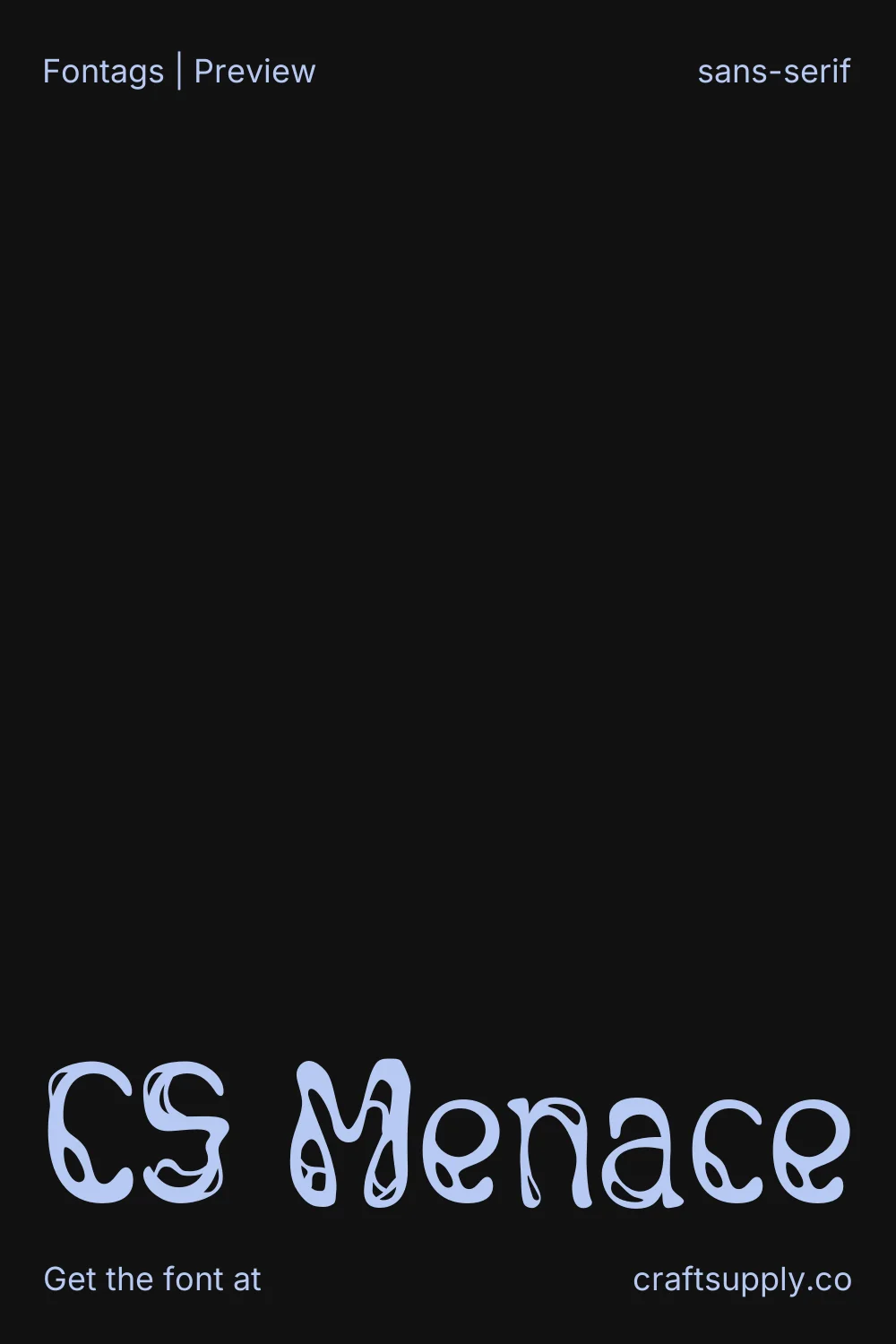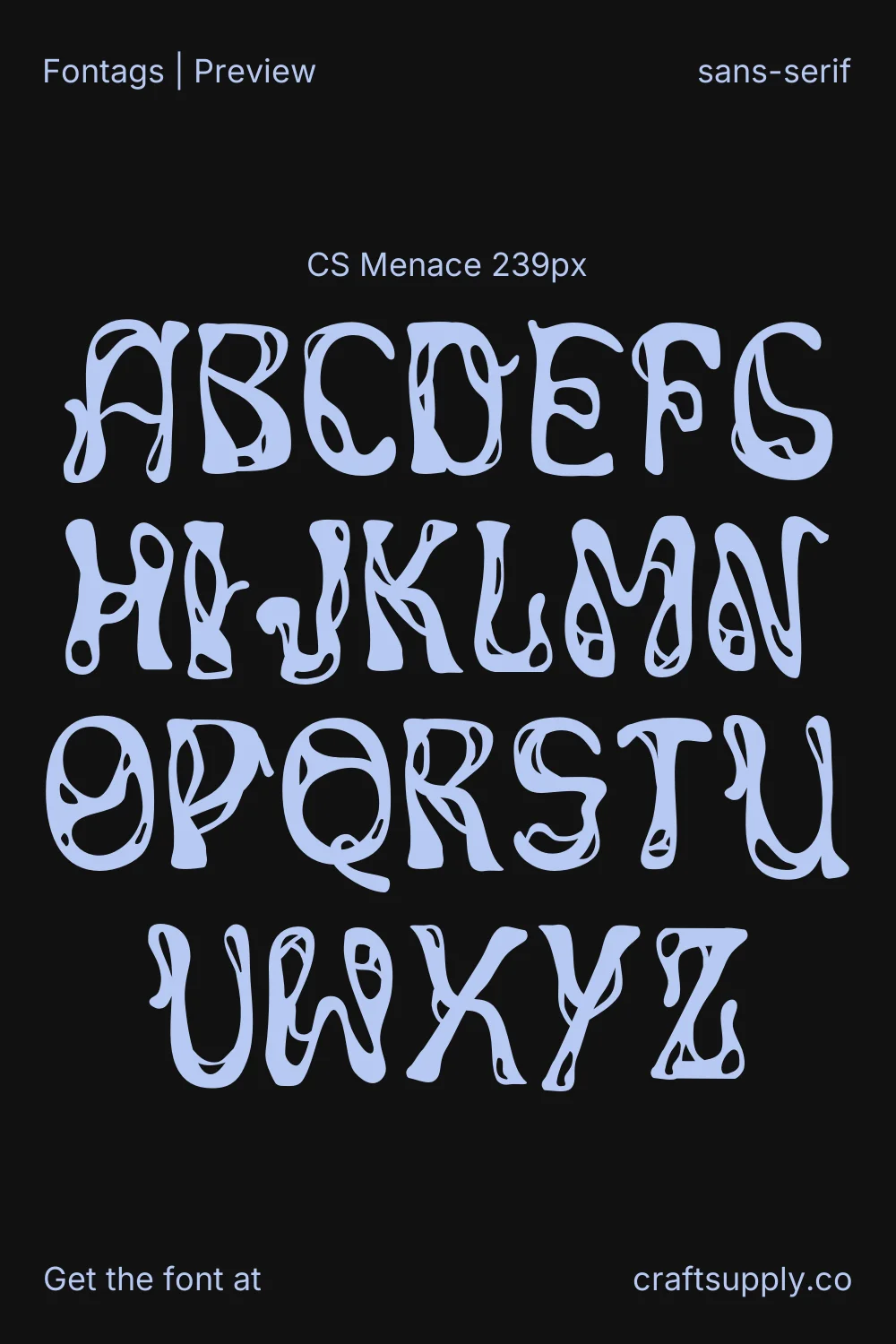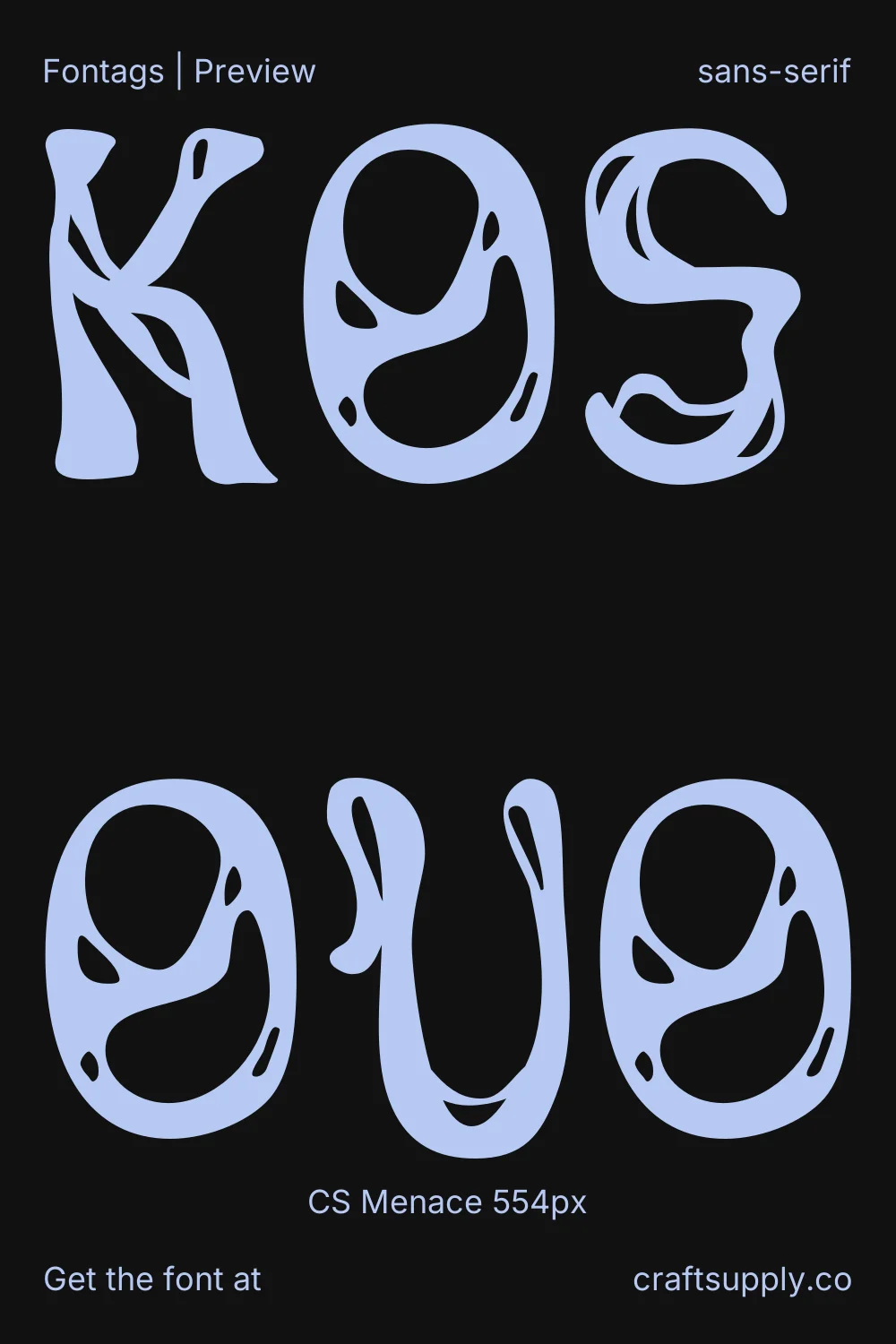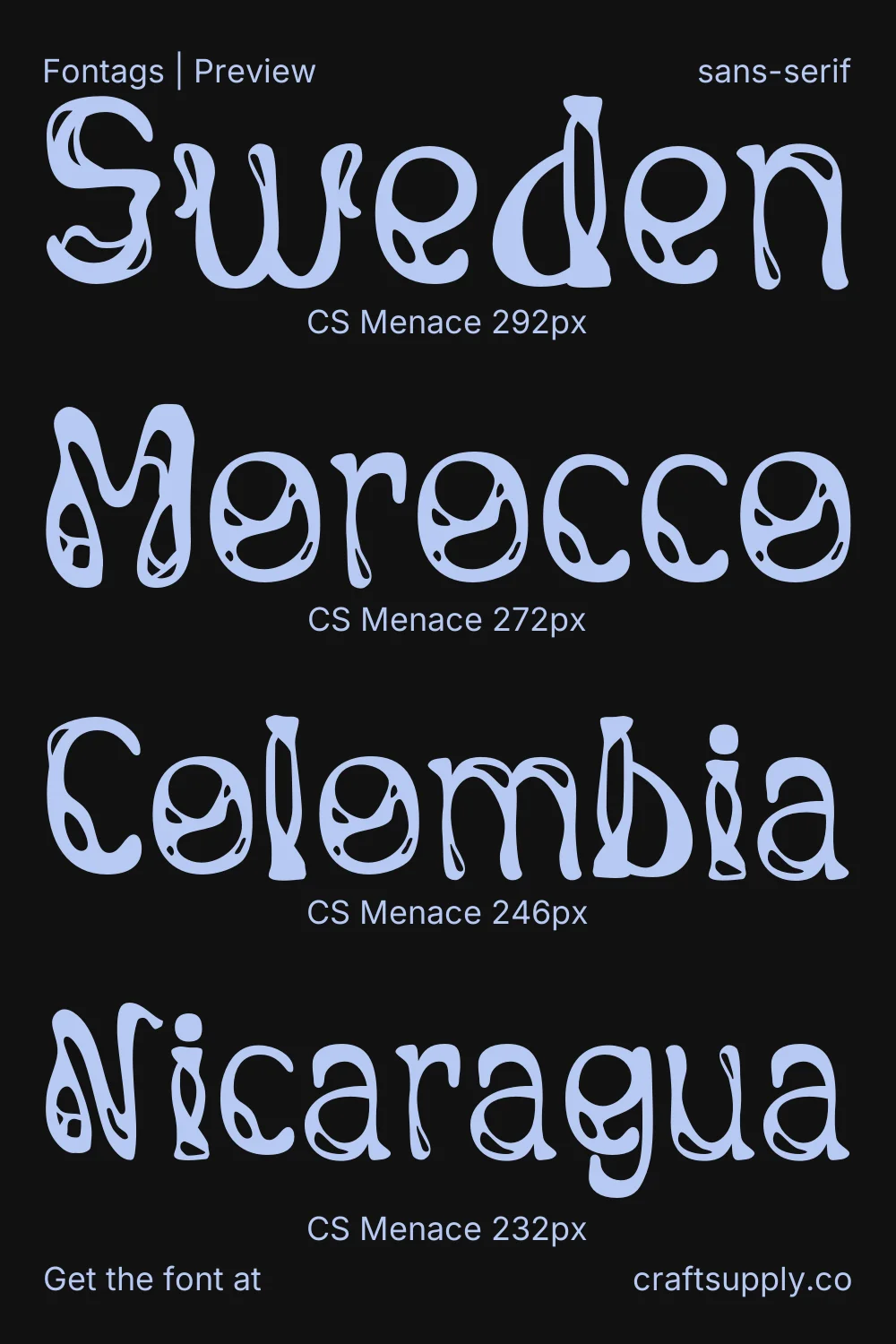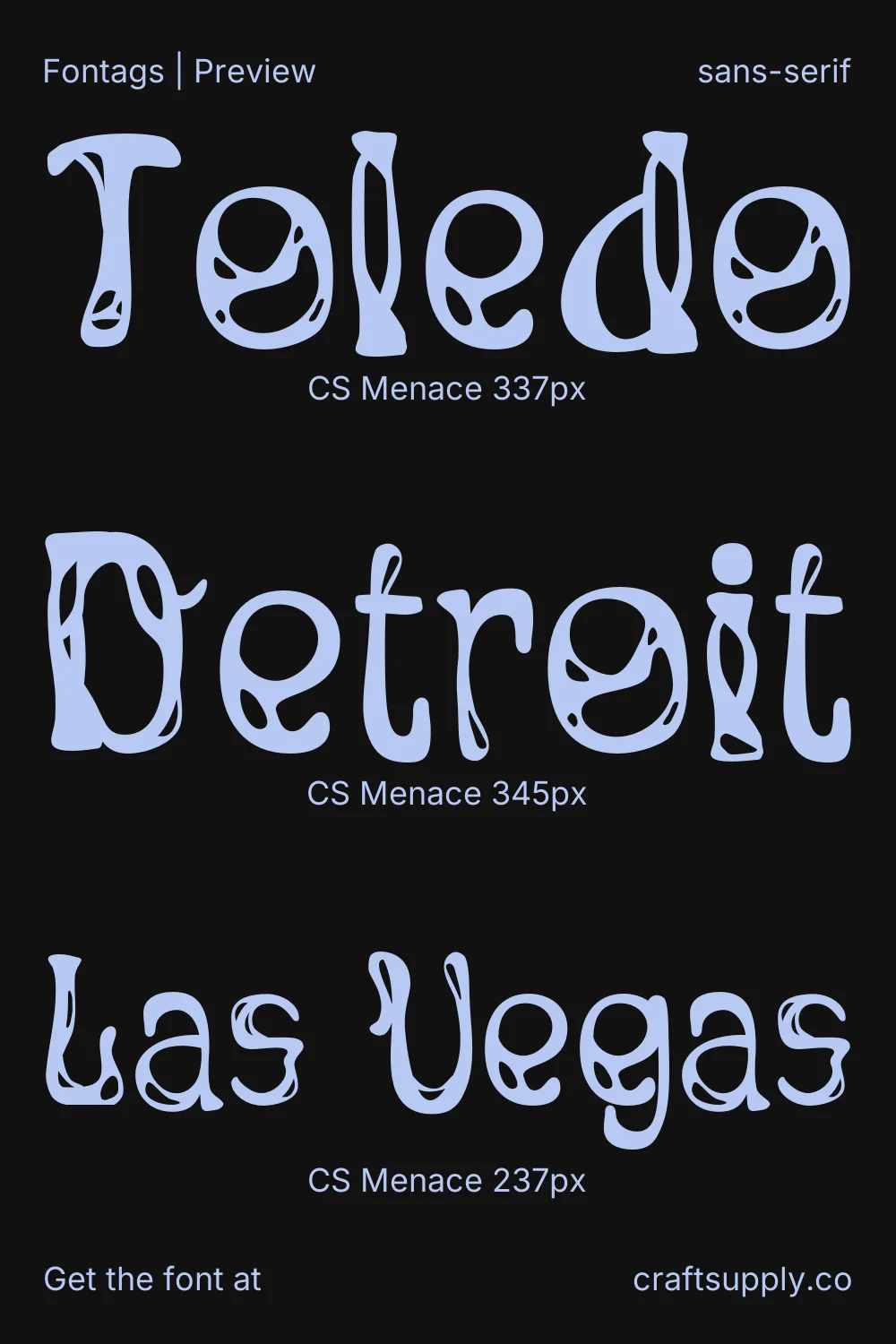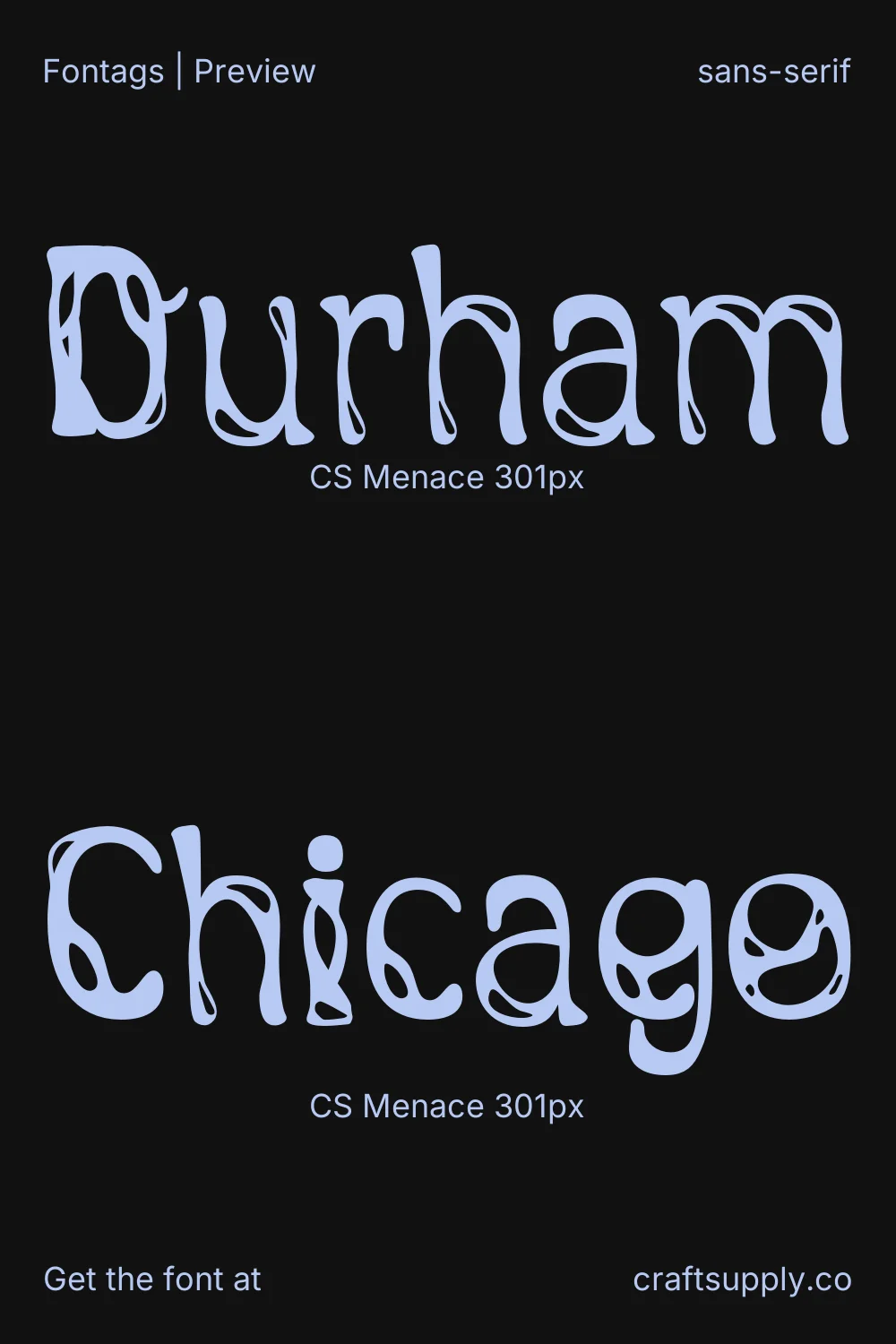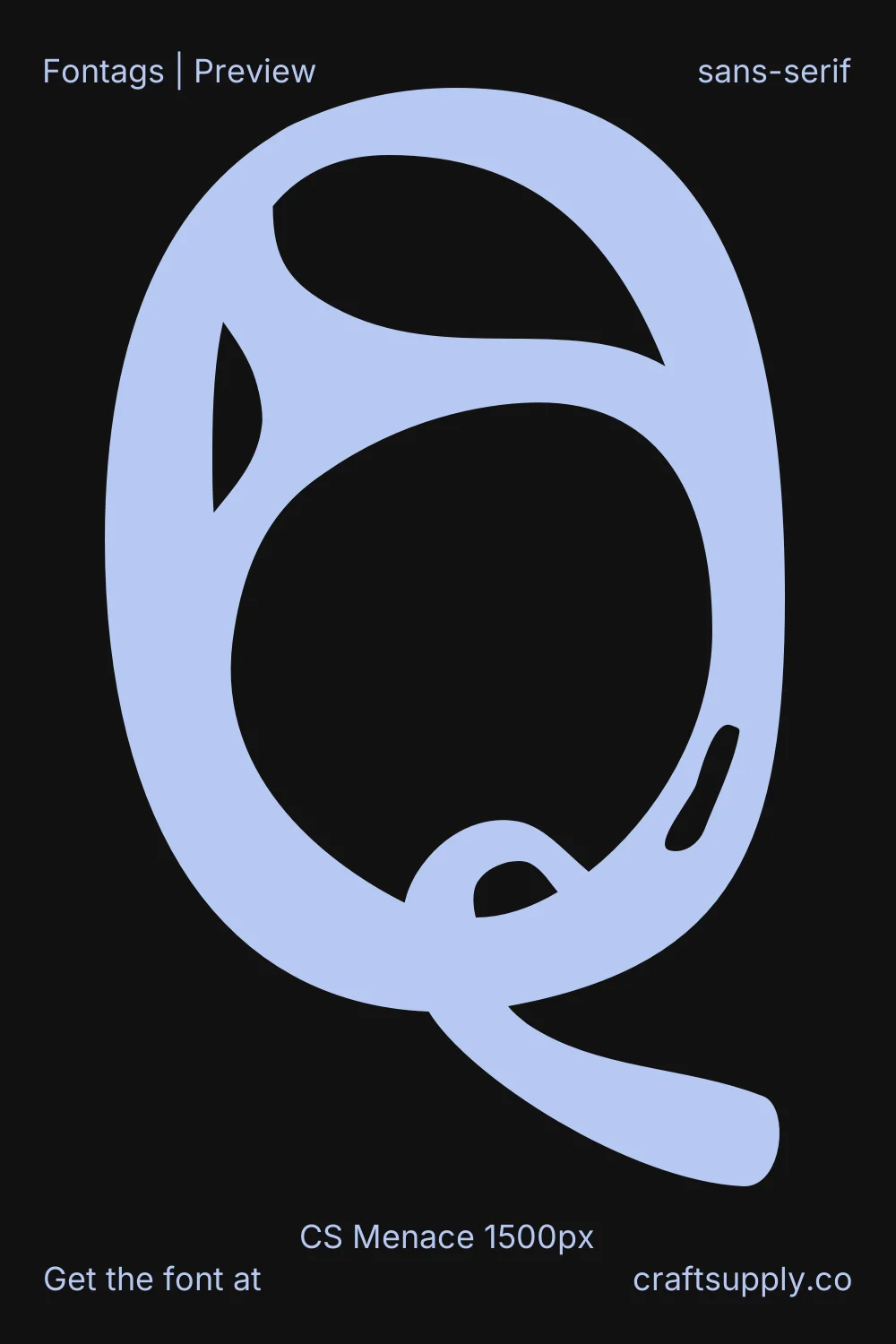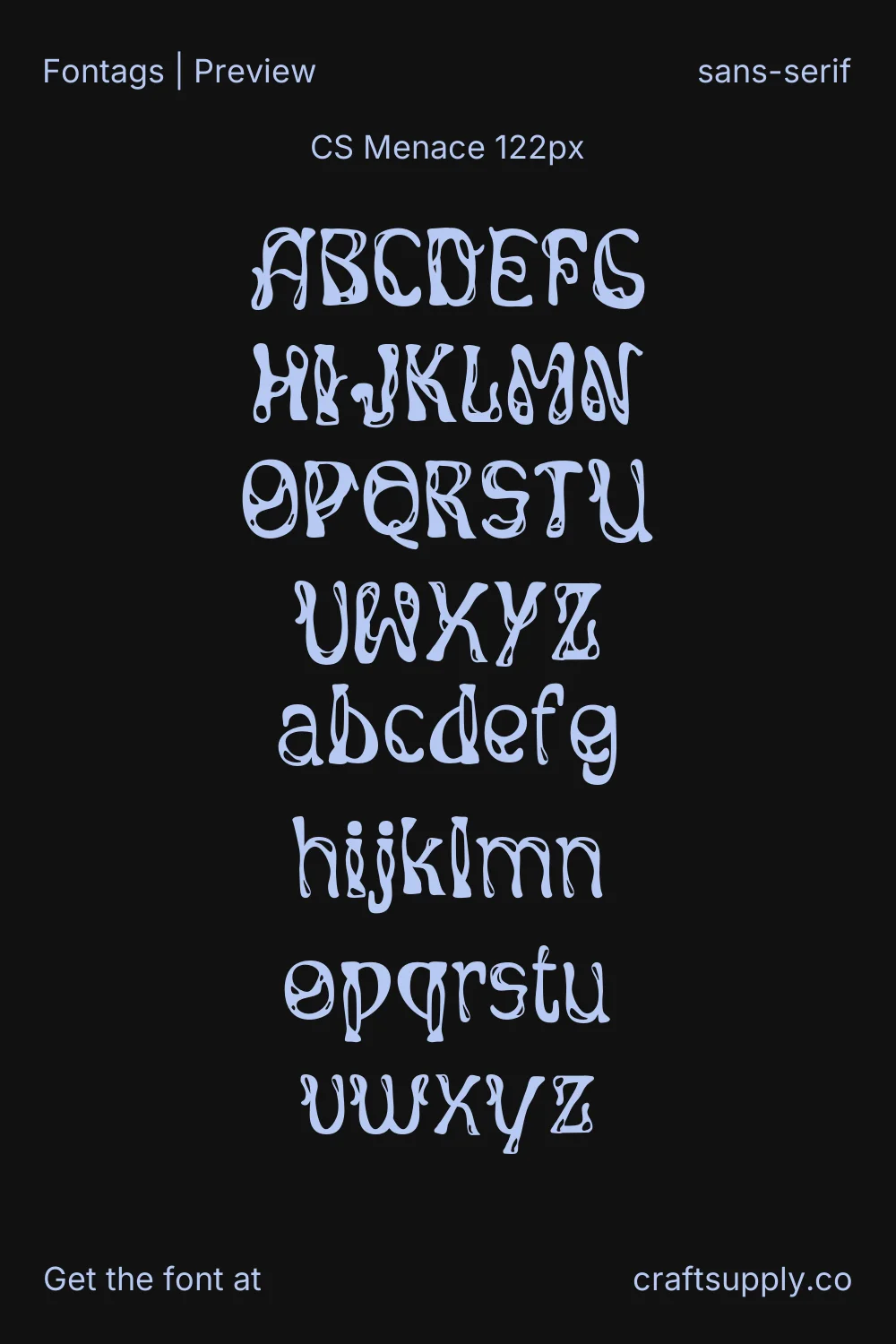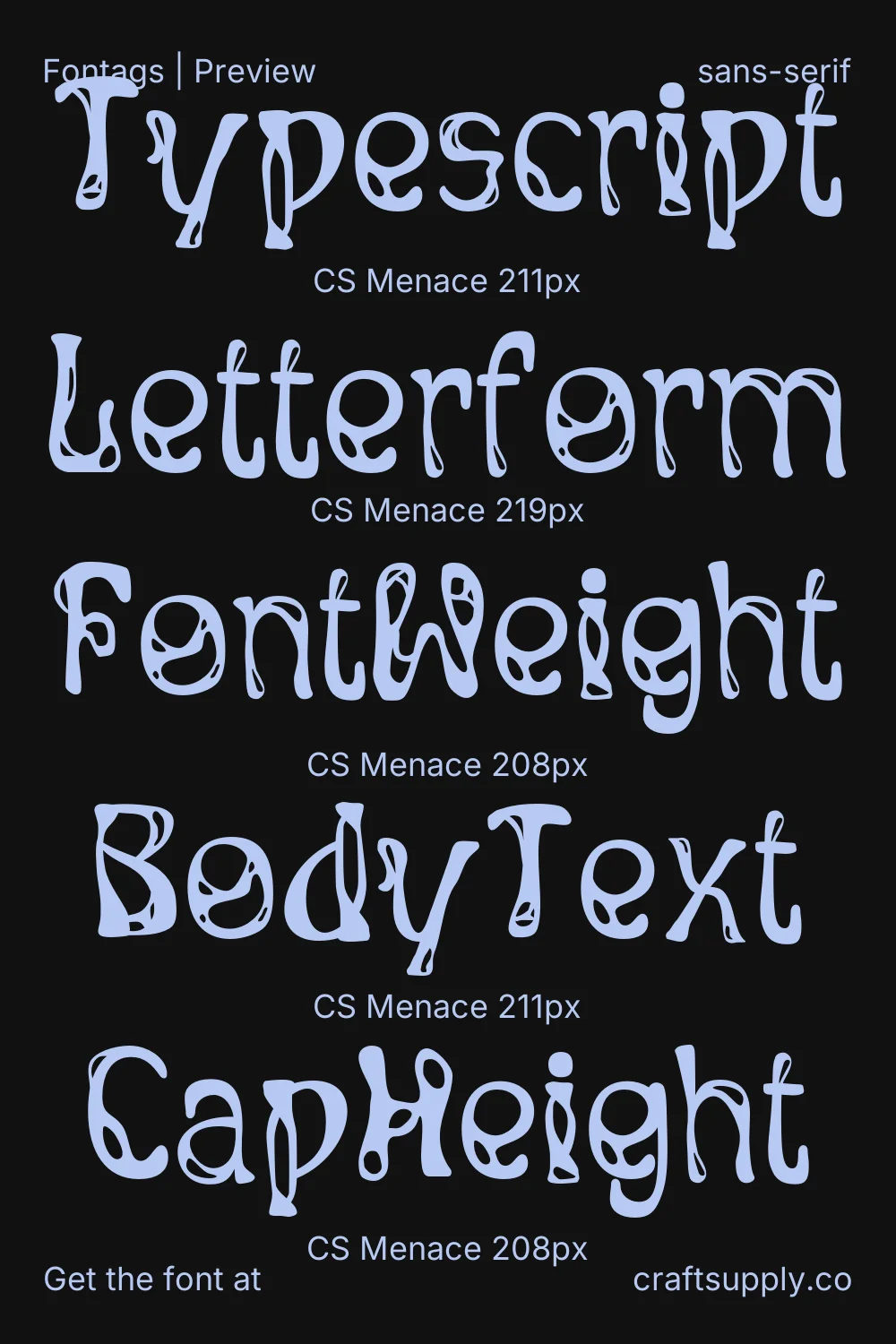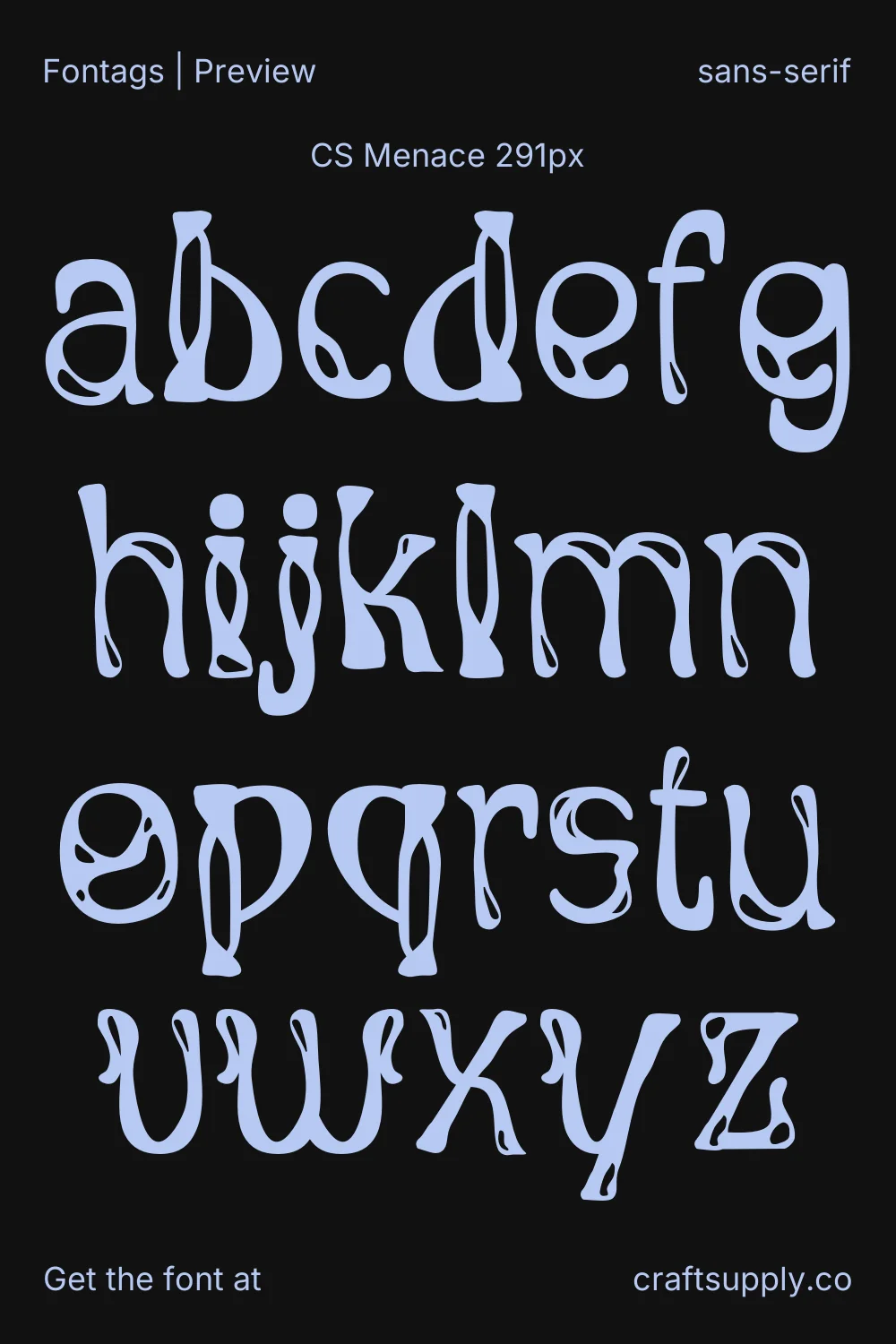
CS Menace
CS Menace is an experimental display sans serif font with liquid, melted letterforms that appear to drip and move. Combining clean structure with fluid distortion, it creates a bold and unconventional look. Ideal for posters, album covers, branding, and editorial designs that demand attention and a touch of artistic rebellion.